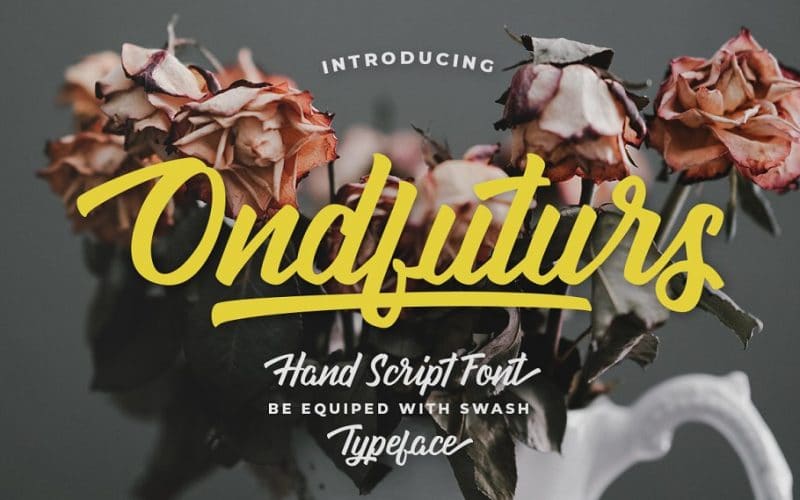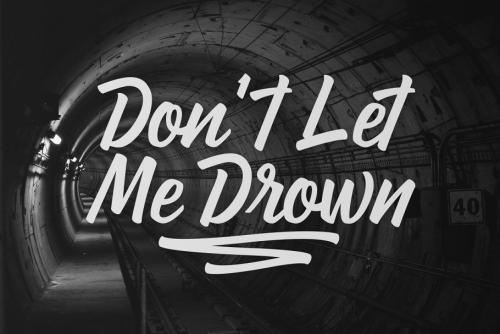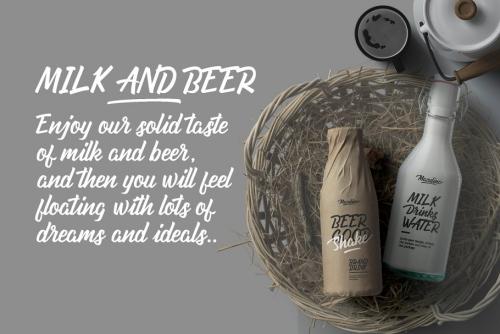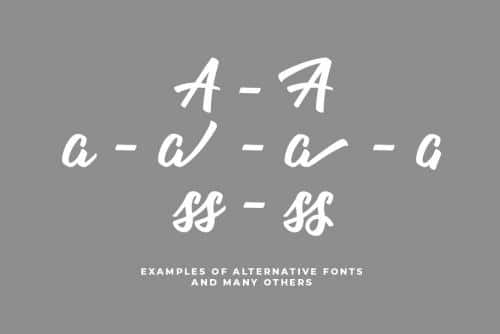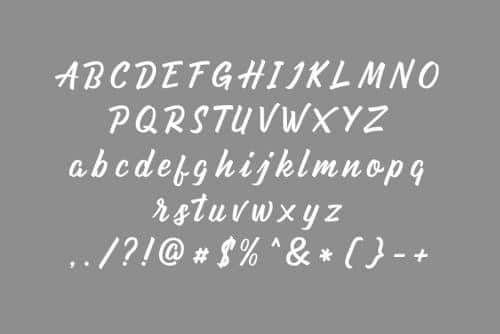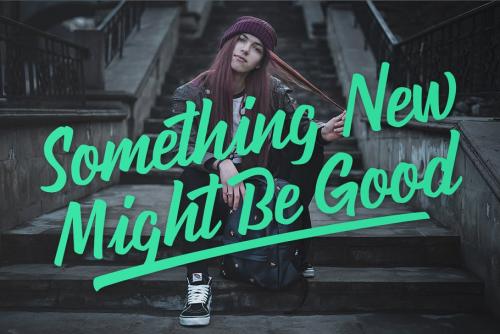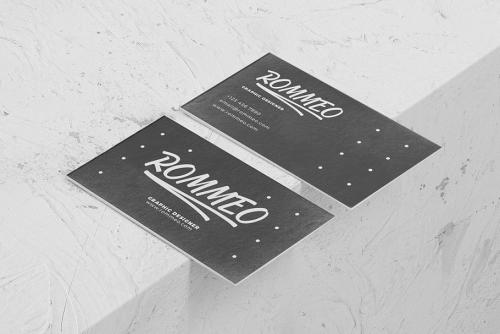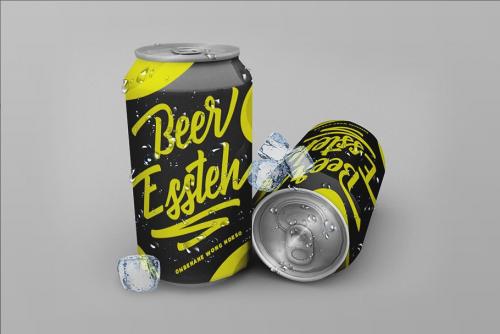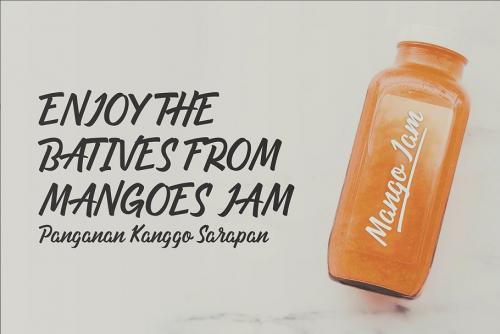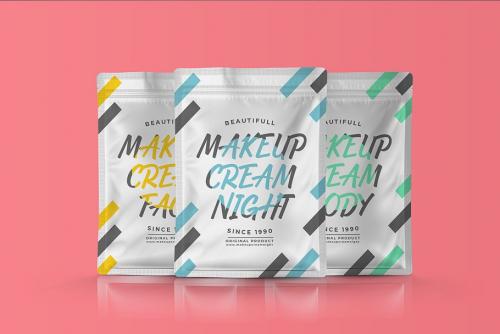
Introducing Ondfuturs, the script font that I designed was so neat with the theme of a nuance of heart that was upset about the feeling of losing a memory and from that created a new nuance to keep moving forward with confidence. This font is inspired by a tale from antiquity to the future with many points of view.
Ondfuturs Script is a typeface thick and easy to read so comfortable to wear .You can use it as a logo, badge, insignia, packaging, headline, poster, t-shirt/apparel, greeting card, business card, and wedding invitation and more. The flowing characters are ideal to make an attractive messages to your taste.
- Designer: maculinc